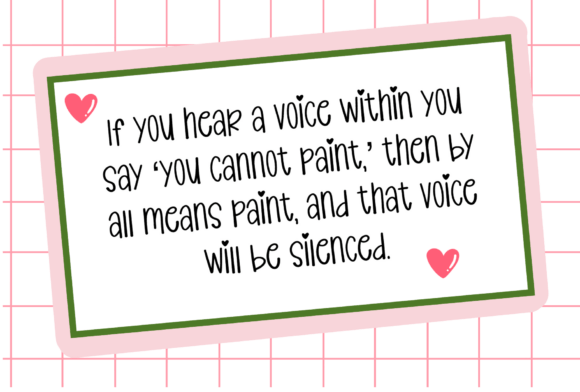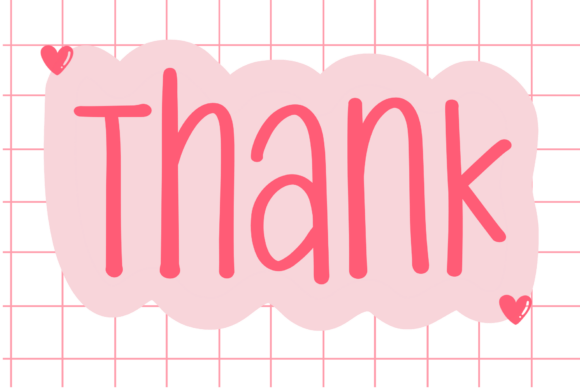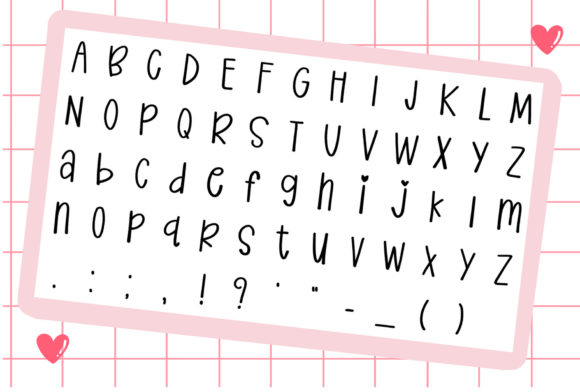
Discover the Charm of Cannot Font: A Designer’s Delight
Are you tired of using the same old fonts in your designs? Look no further than Cannot Font, a sweet and friendly typeface that’s sure to capture your audience’s attention. With its natural and unique style, Cannot Font is incredibly versatile and can be used in a wide range of designs, from playful crafts to sophisticated branding projects.
The Unique Style of Cannot Font
Cannot Font boasts a distinctive, hand-crafted look that’s both charming and approachable. Its natural style makes it perfect for designs that require a personal touch, such as handmade crafts, DIY projects, or social media graphics. The font’s unique character set and gentle curves evoke a sense of warmth and friendliness, making it an excellent choice for designers who want to create an emotional connection with their audience.
The beauty of Cannot Font lies in its incredible versatility. Whether you’re designing a whimsical children’s book, a stylish brand identity, or a heartfelt greeting card, this font is sure to inspire your creativity. Its natural, effortless style blends seamlessly with a variety of design aesthetics, from rustic and vintage to modern and playful.
Perfect for Crafters and Makers
Crafters and makers will love Cannot Font for its ability to add a personal, handmade touch to their projects. Use it to create eye-catching titles, labels, or headings for your handmade products, or incorporate it into your social media graphics and marketing materials. The font’s friendly, approachable style is sure to resonate with your audience and help your brand stand out.
Tips for Using Cannot Font
To get the most out of Cannot Font, try pairing it with complementary fonts to create visual interest and contrast. Experiment with different colors, textures, and graphics to add depth and personality to your designs. Don’t be afraid to get creative and try new things – with Cannot Font, the only limit is your imagination!
Key Features of Cannot Font
- Unique, hand-crafted style: Gives your designs a personal, natural look
- Natural and friendly: Evokes a sense of warmth and approachability
- Highly versatile: Suitable for a wide range of designs, from crafts to branding projects
- Easy to read: Clear and legible, even at small sizes
In conclusion, Cannot Font is a sweet and friendly typeface that’s sure to delight designers and crafters alike. Its natural, unique style makes it incredibly fitting for a large pool of designs, and its versatility knows no bounds. Whether you’re creating handmade crafts, branding projects, or social media graphics, Cannot Font is the perfect choice for adding a personal touch to your designs. So why wait? Unlock your creativity and explore the endless possibilities of Cannot Font today!